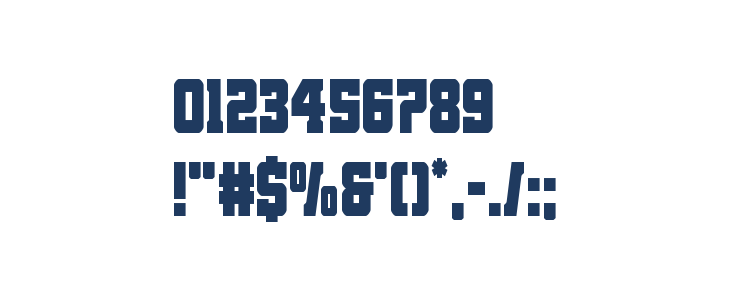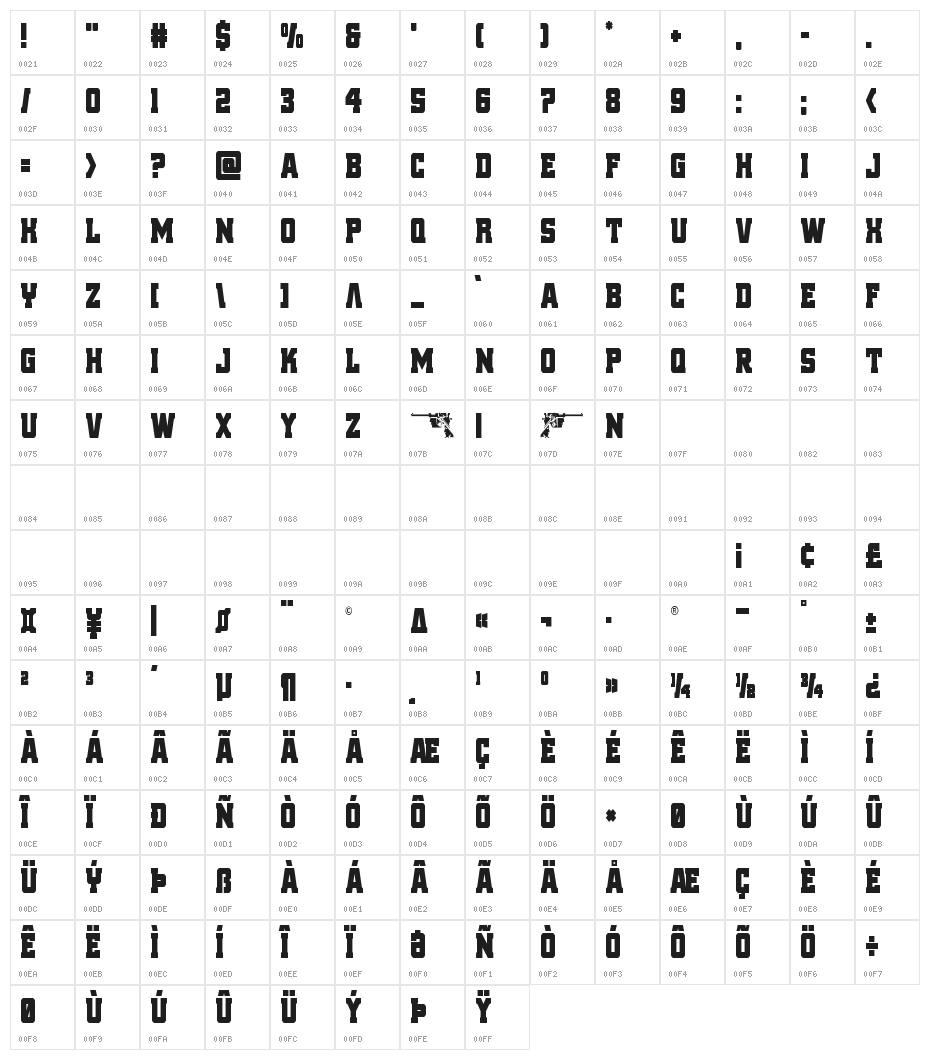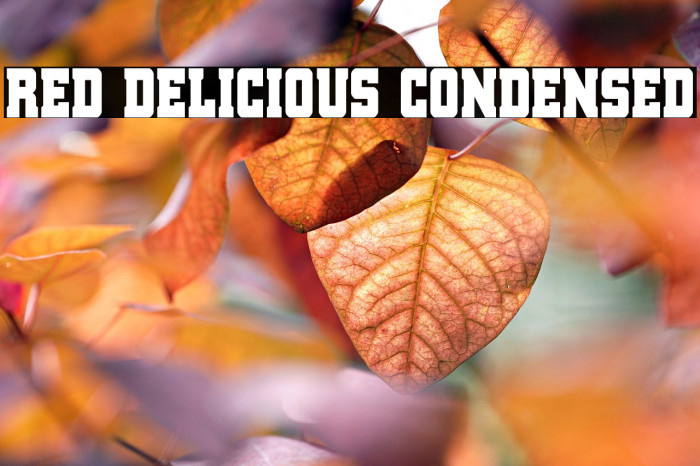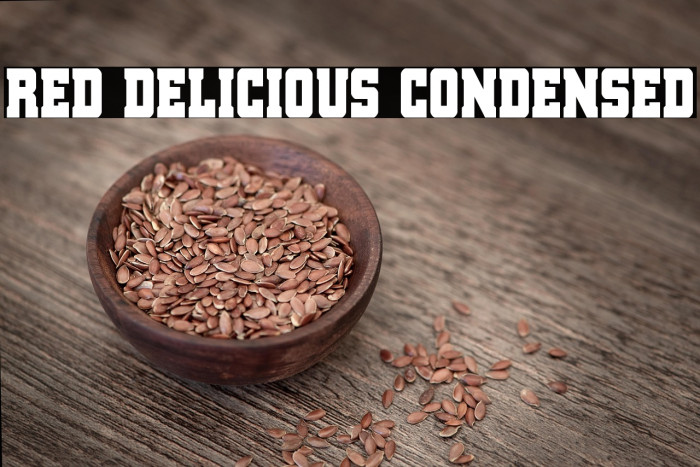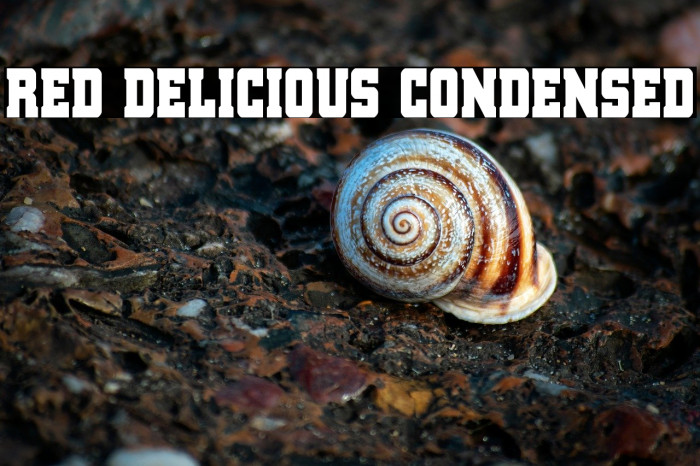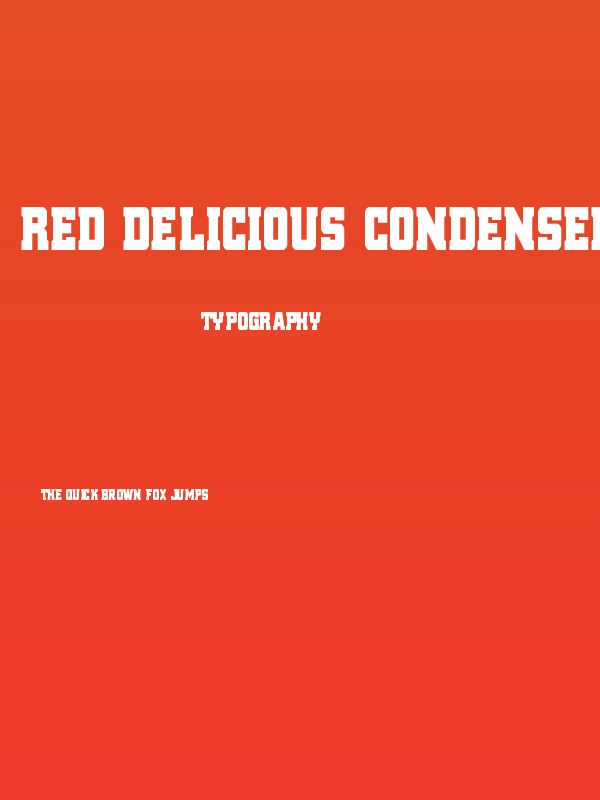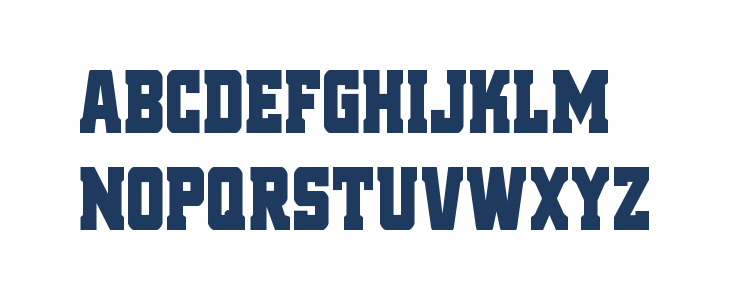
Red Delicious Condensed Font
Red Delicious Condensed Description
This font features a bold and robust design with a strong presence. The characters are condensed, giving it a compact and powerful look. The strokes are thick and uniform, providing a sense of stability and strength. The uppercase letters are particularly striking, with sharp angles and a blocky appearance that commands attention. The numbers and special characters maintain the same bold style, ensuring consistency across all elements. This font is ideal for making a statement and is perfect for projects that require a strong visual impact.
| Proposed Projects | Ideal for posters, headlines, branding, and any design that requires a bold statement. |